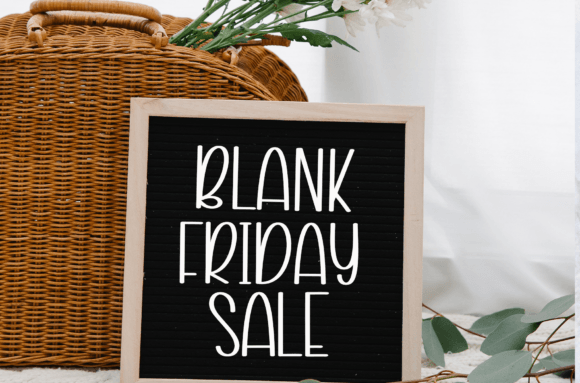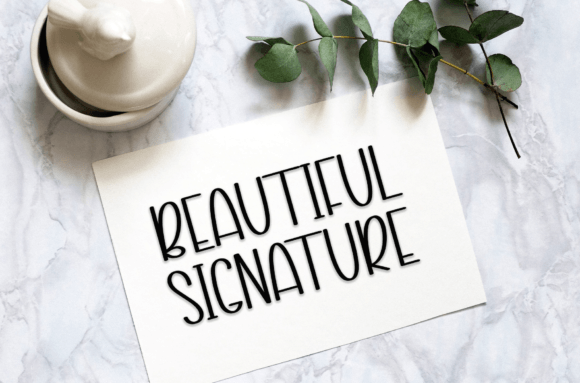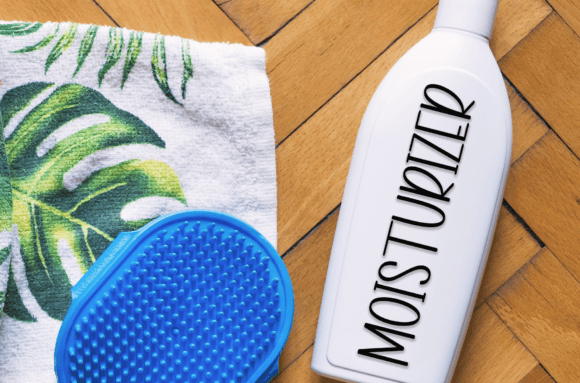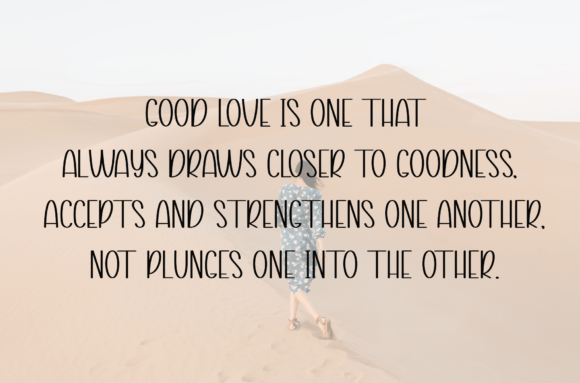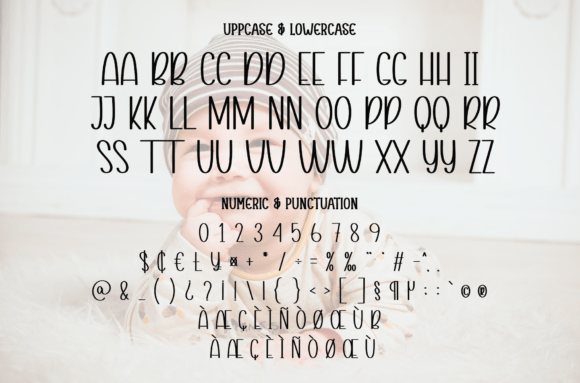
Discover the Sweetness of Baby Harmony Font
As designers, we’ve all been there – staring at a blank canvas, trying to come up with the perfect idea for a project. Maybe it’s a wedding invitation, a birthday card, or a social media post. Whatever it is, we know that the right font can make all the difference. That’s where Baby Harmony Font comes in – a sweet and friendly handwritten font that’s sure to add a fun touch to any design.
This font is perfect for designers who want to add a personal and playful touch to their work. With its fresh and neat design, Baby Harmony Font is ideal for creating invitations, cards, and other designs that need a little extra something special. Whether you’re a seasoned pro or just starting out, this font is a valuable addition to any designer’s toolkit.
Baby Harmony Font Key Features
- Unique Characteristics: Baby Harmony Font features a unique, modern design with a playful twist, making it perfect for use in children’s products, nursery decor, and other projects that require a whimsical touch.
Designer Review: Baby Harmony Font
I recently had the chance to work with the Baby Harmony Font, and I have to say it’s a unique addition to any project. Here’s my honest take on what works well and what doesn’t.
- Beautiful, playful script: The Baby Harmony Font is perfect for projects that require a whimsical touch. Its elegant script style adds a touch of sophistication to any design.
- Excellent for branding: The font is ideal for creating memorable brand identities, especially for businesses targeting young families or children.
- Good legibility: Despite its script style, Baby Harmony Font is easy to read, making it a great choice for body text and headings.
- Limited font weights: Baby Harmony Font only comes in a few weights, which might limit its use in certain design situations.
- No italic or oblique styles: If you need to create emphasis or create a sense of movement, you’ll be limited to using bold or regular weights.
- Not suitable for large blocks of text: While Baby Harmony Font is great for headings and small amounts of text, it can get overwhelming when used for large blocks of text.
Baby Harmony Font is a great addition to any designer’s toolkit. While it has its limitations, its unique style and excellent legibility make it a great choice for projects that require a playful touch. Just be mindful of its limitations and use it judiciously.
Tips for Getting the Most Out of Baby Harmony Font
Use the Baby Harmony Font for baby-related designs, such as baby shower invitations, nursery decor, and children’s books. You can also use it for creative titles, headings, and captions.
Experiment with different font sizes, colors, and styles to create a unique and eye-catching design.
Common Use Cases for Baby Harmony Font
Baby shower invitations and cards
Nursery decor and wall art
Children’s books and educational materials
Product labels and packaging for baby-related products